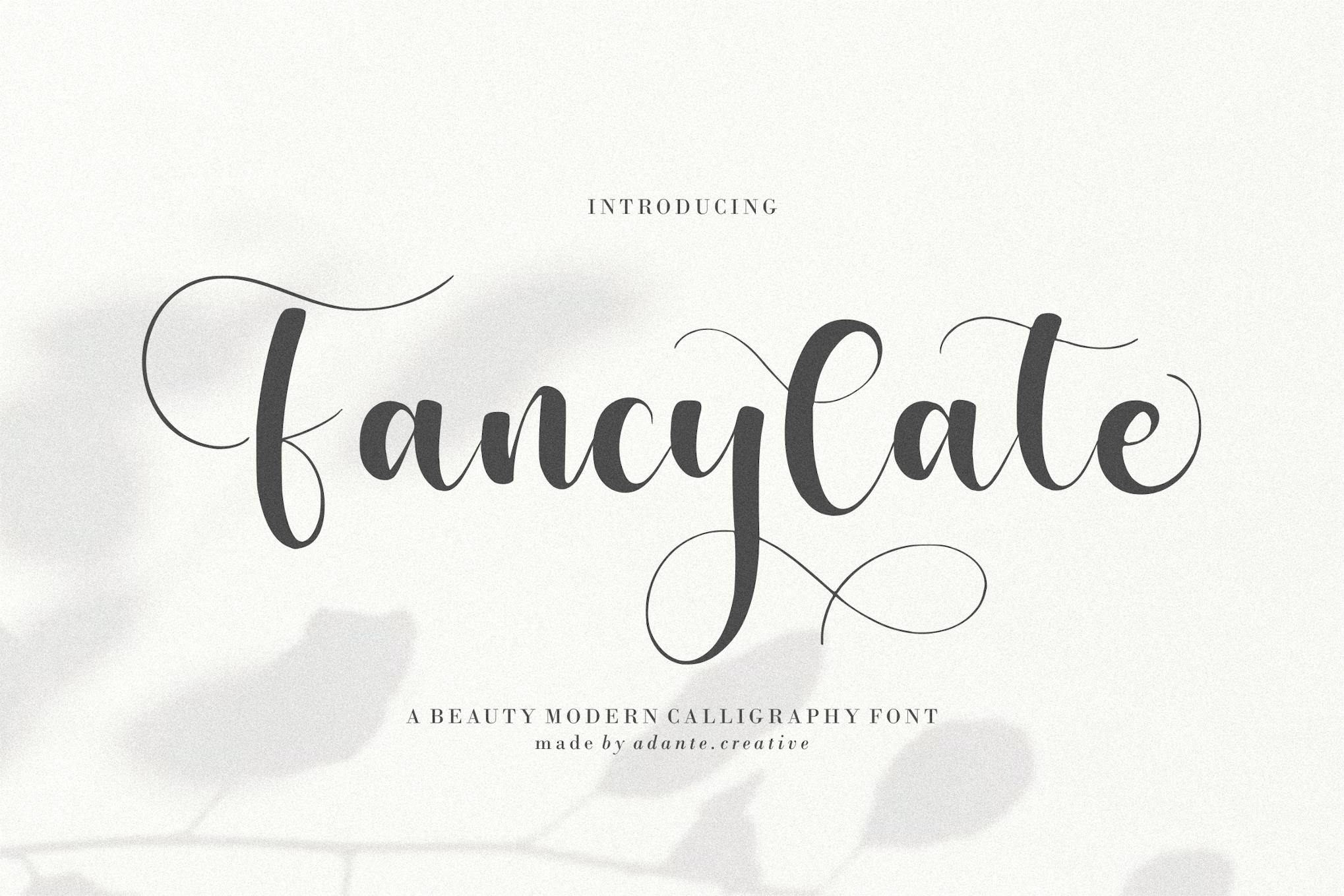
AC - Fancylate Font
Fancylate is a Beauty Modern Calligraphy font, branding materials for beauty salons, fashion boutiques, and lifestyle brands. Its modern yet elegant appearance helps create a distinctive and memorable brand identity that resonates with the target audience. This font includes OTF, TTF & Woff Software that you can use to use this font: Adobe Illustrator, Adobe Photoshop, Microsoft Word, Corel Draw, And Inkscape, etc.